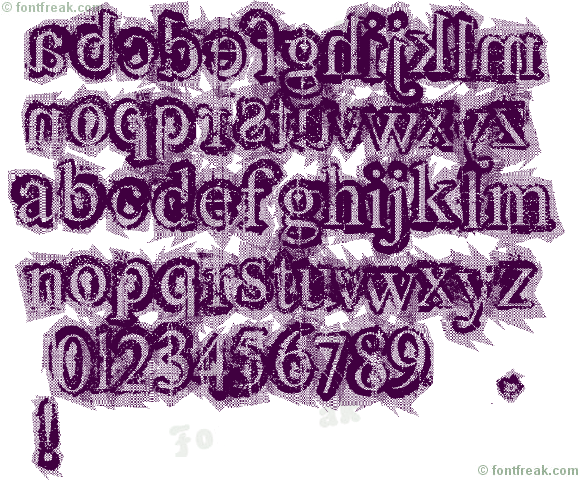
final lap
Final Lap, designed by Gyom Seguin in 2006, is a decorative display font that captures attention with its unique, grungy aesthetic. The font is characterized by its bold, uneven strokes and a rough texture that gives it a hand-crafted feel. The contrast in stroke weight adds a dynamic quality, making it visually interesting and engaging. Spacing is tight yet intentional, allowing each letter to stand out while still maintaining a cohesive look. The decorative elements, with their distressed appearance, evoke a sense of urgency and excitement, making it perfect for various creative applications.
This font is ideal for use in environments where a strong visual presence is required. It shines in contexts such as movie posters, where its energetic vibe can enhance the theme of action or adventure. Additionally, wedding invitations can benefit from its unique flair, creating a memorable first impression. Restaurant menus can also leverage the Final Lap font to convey a trendy, casual atmosphere, making the dining experience feel more inviting. Graphic designers and content creators will find it particularly useful for branding projects that aim to stand out in a crowded marketplace.
The target audience for Final Lap includes graphic designers looking to make bold statements, small business owners wanting to establish a distinctive brand identity, and content creators seeking to add an edge to their projects.
What sets the Final Lap font apart is its ability to blend playfulness with a gritty, urban feel. This font is more than just a typeface; it’s a tool for storytelling, capable of enhancing any design project with its distinctive style. For those interested in exploring this unique typeface, the final lap font free download is readily available, making it an accessible choice for all creative endeavors.